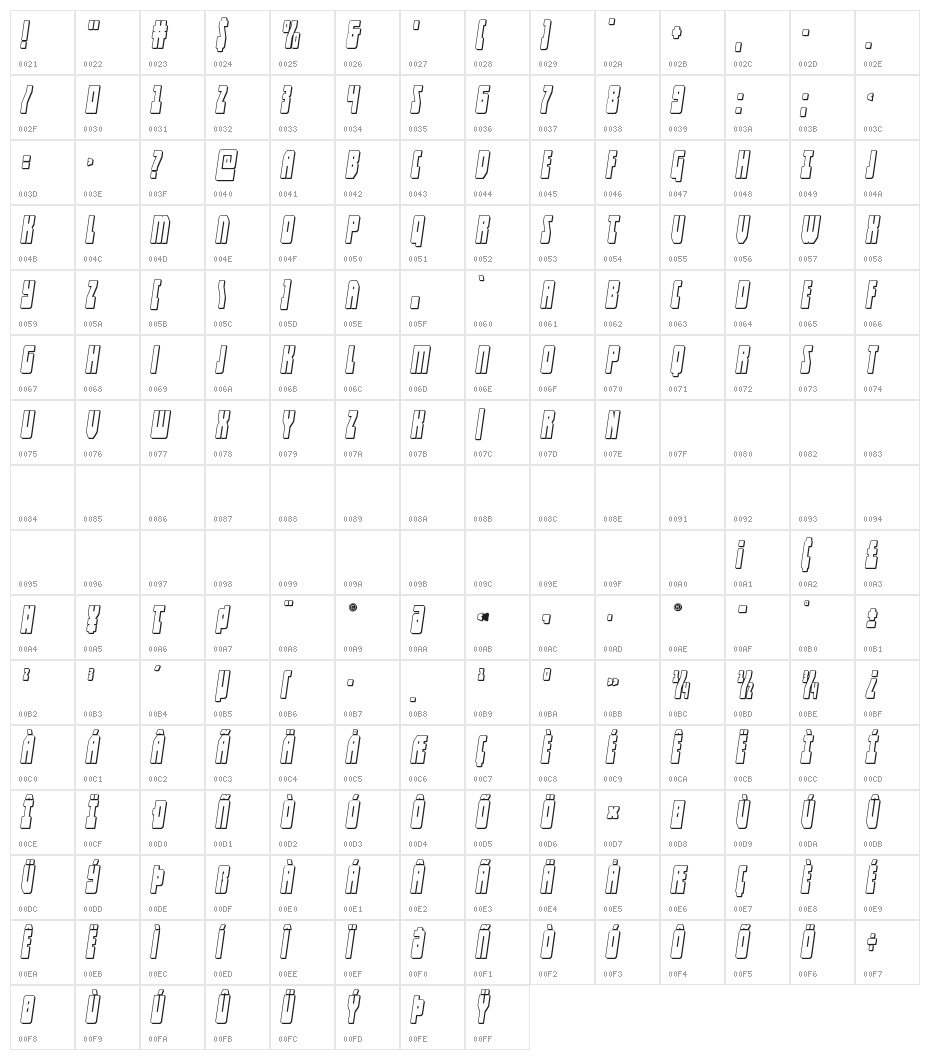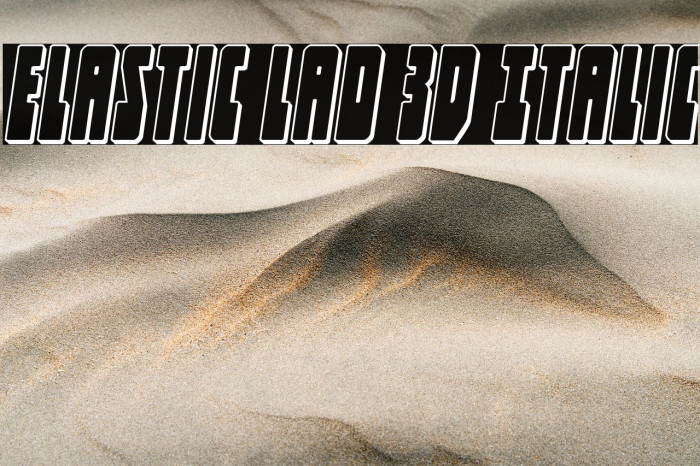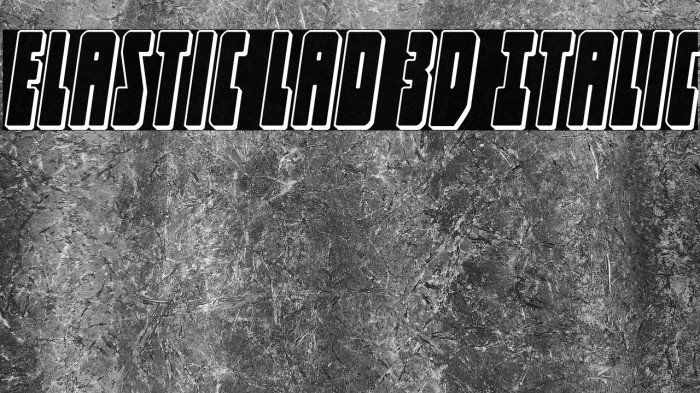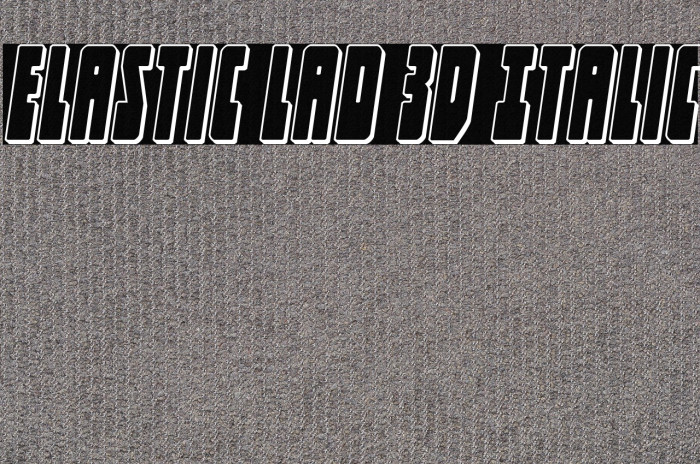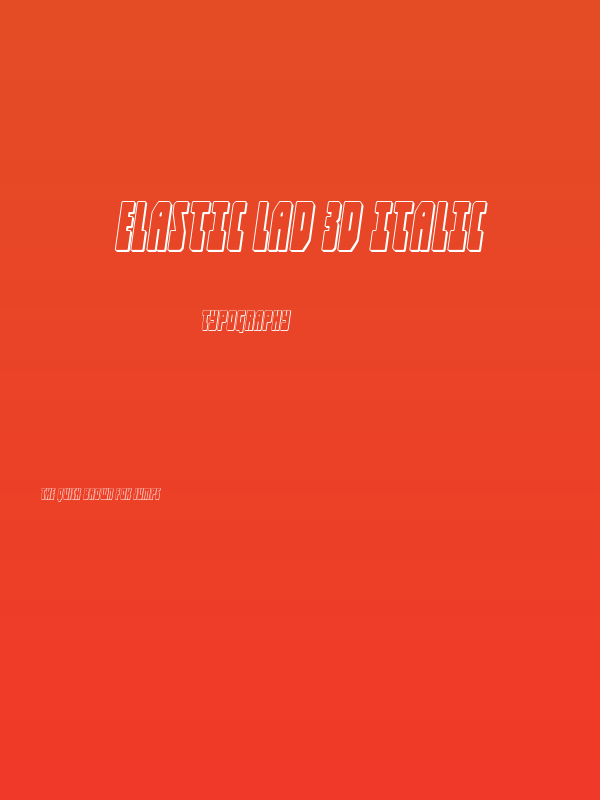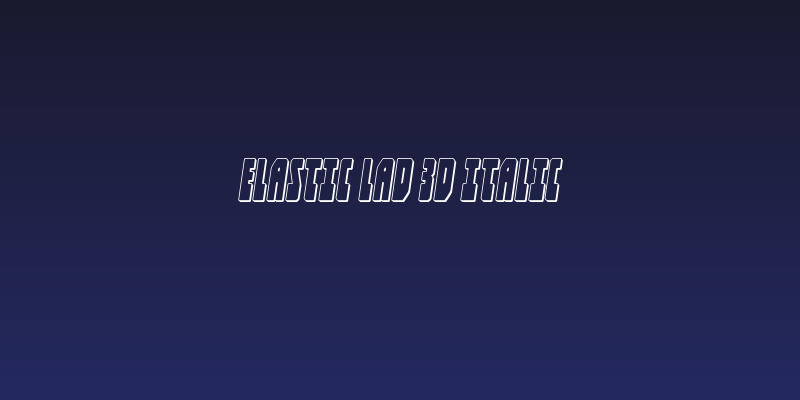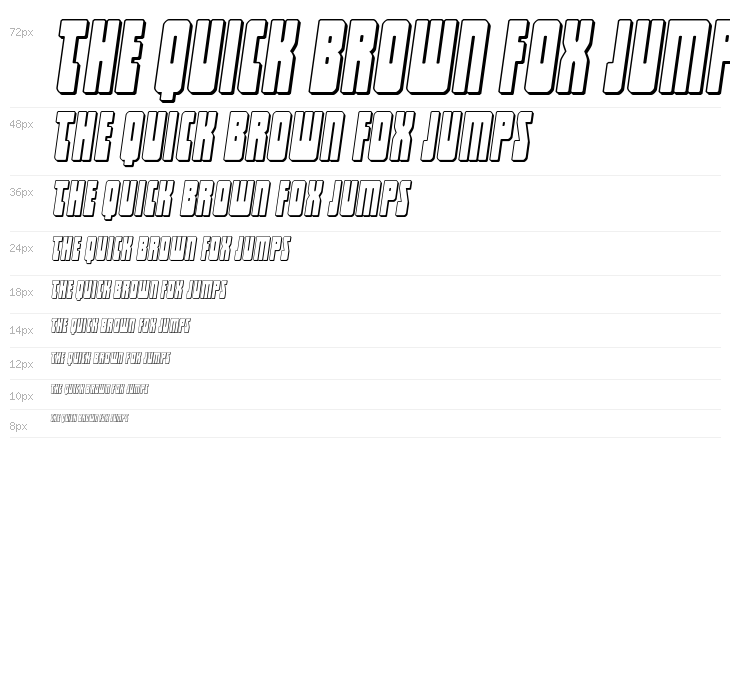
Elastic Lad 3D Italic Font
Elastic Lad 3D Italic Description
This font features a bold, three-dimensional appearance with an italic slant, giving it a dynamic and modern look. The characters are outlined, creating a striking visual effect that enhances readability while adding depth. The uppercase and lowercase letters maintain a consistent style, with sharp angles and clean lines. The numerals and special characters are designed to match the bold and structured aesthetic, making them stand out. This font's unique 3D effect makes it ideal for attention-grabbing designs.